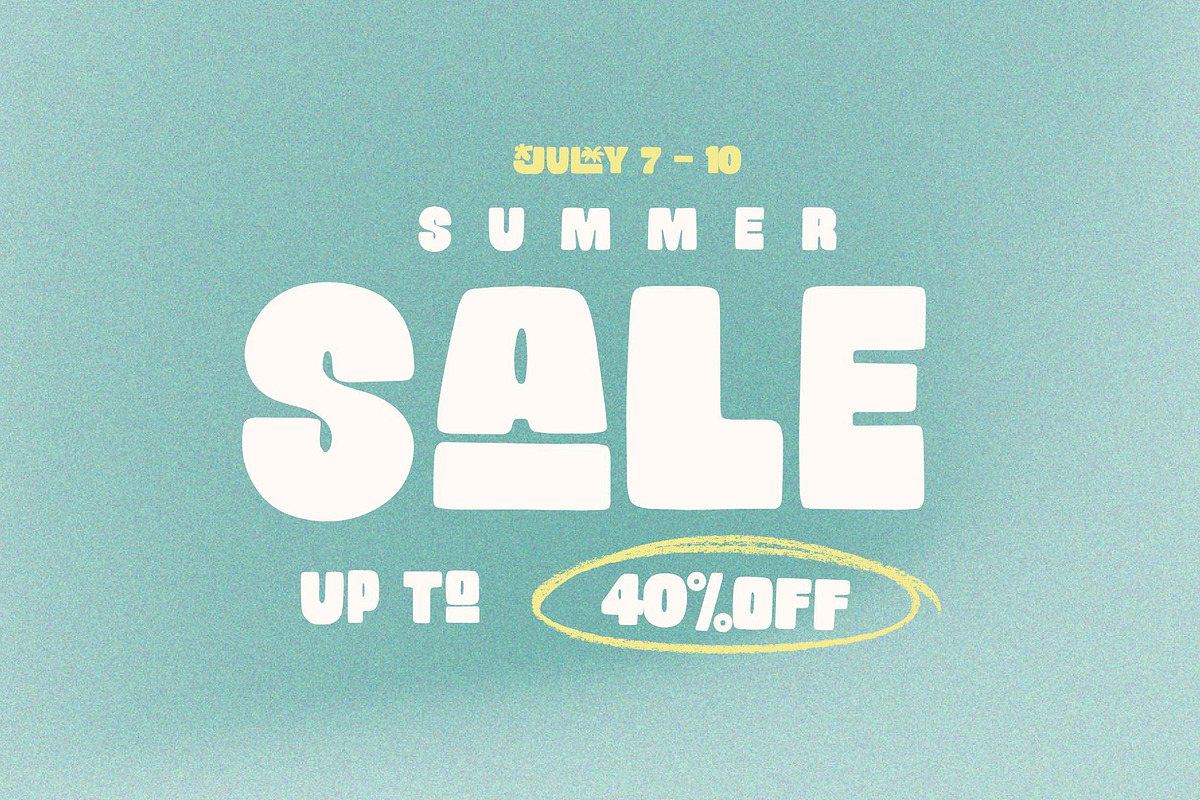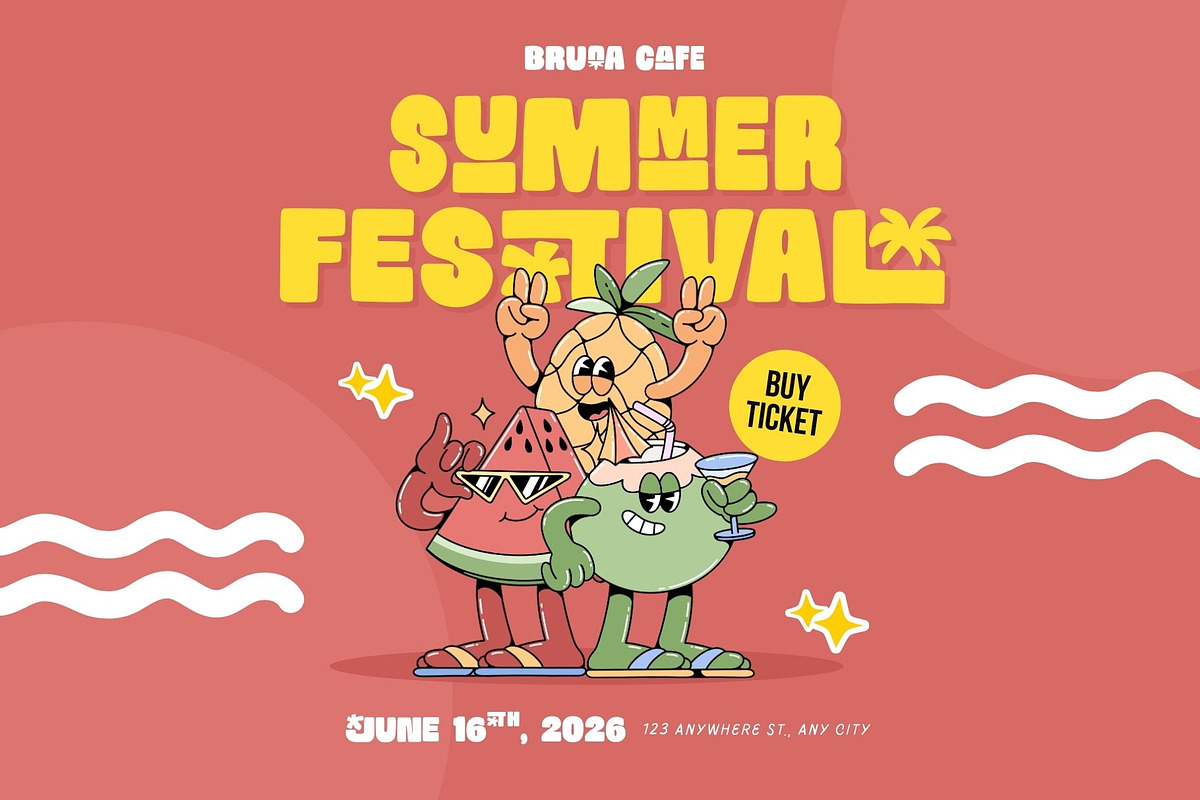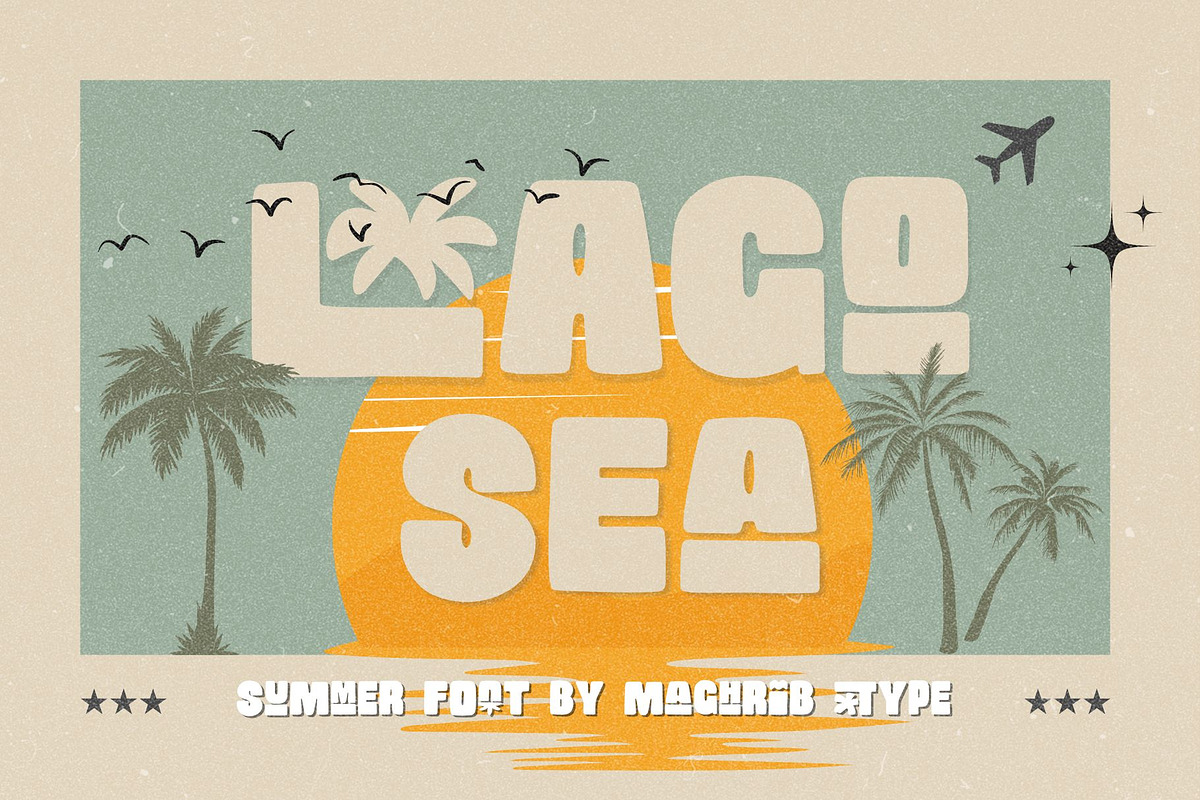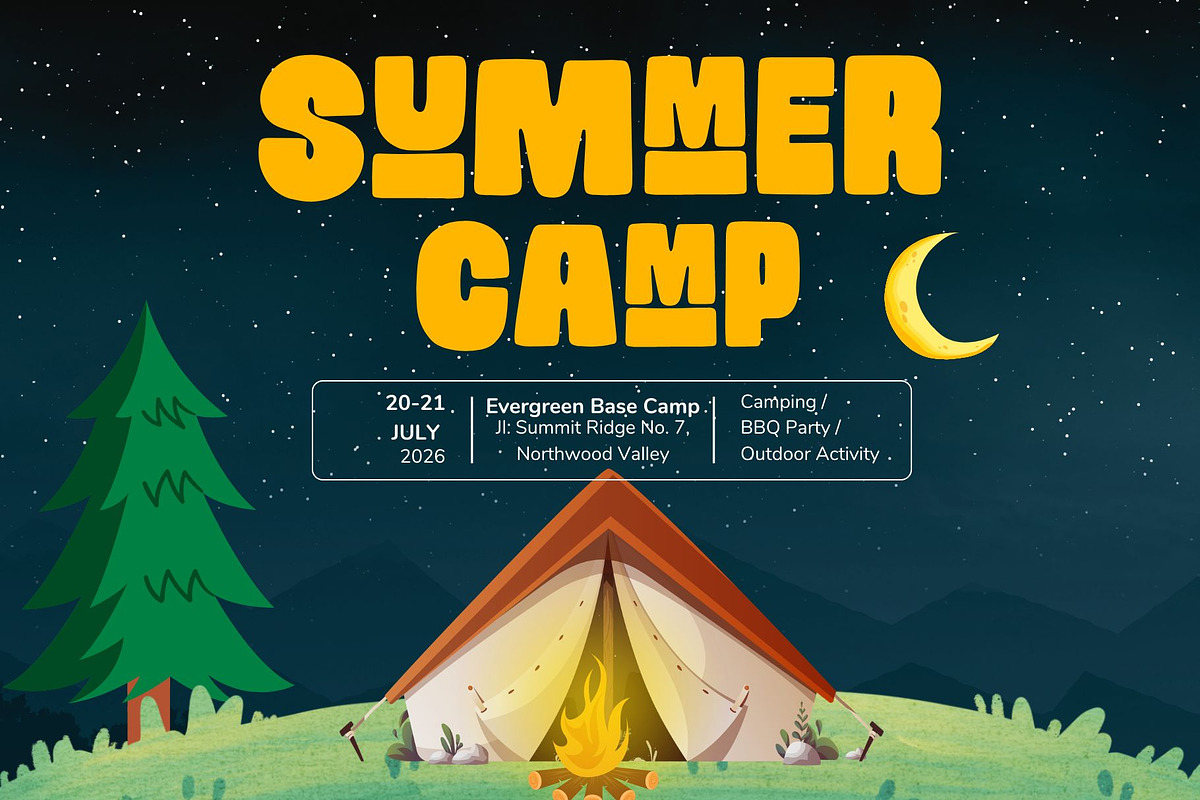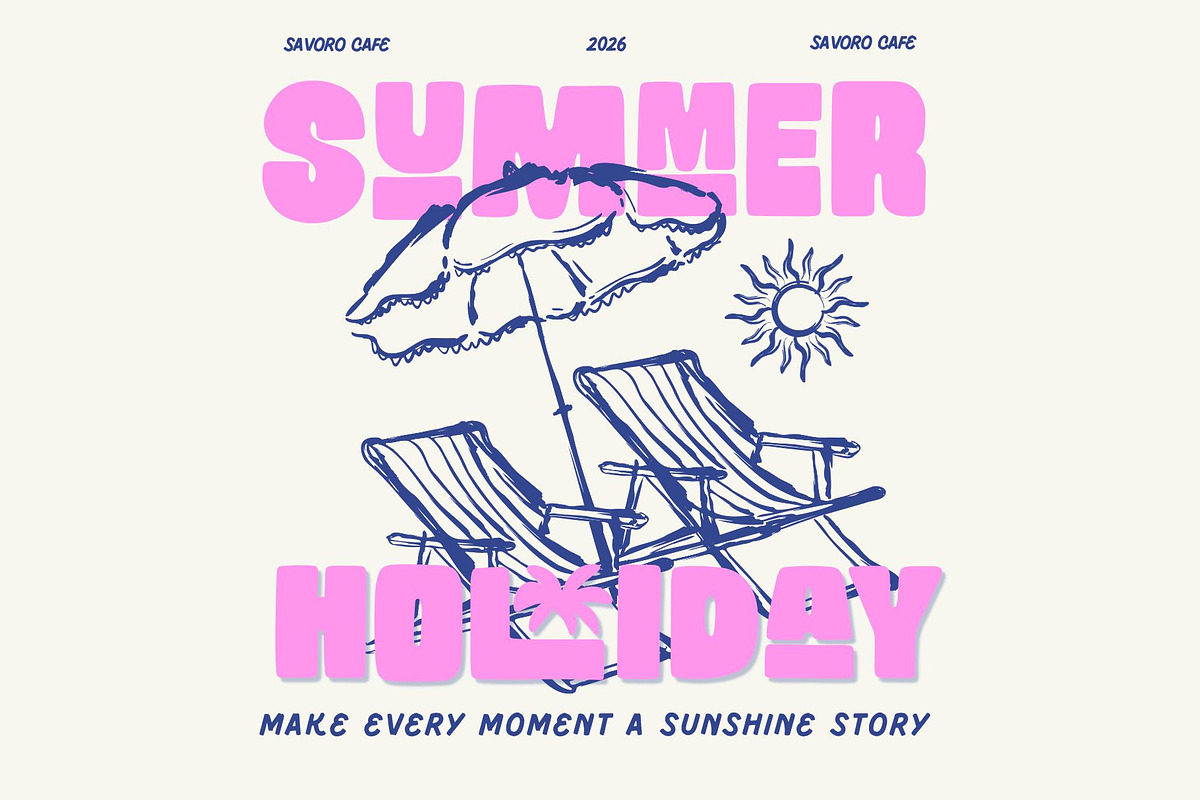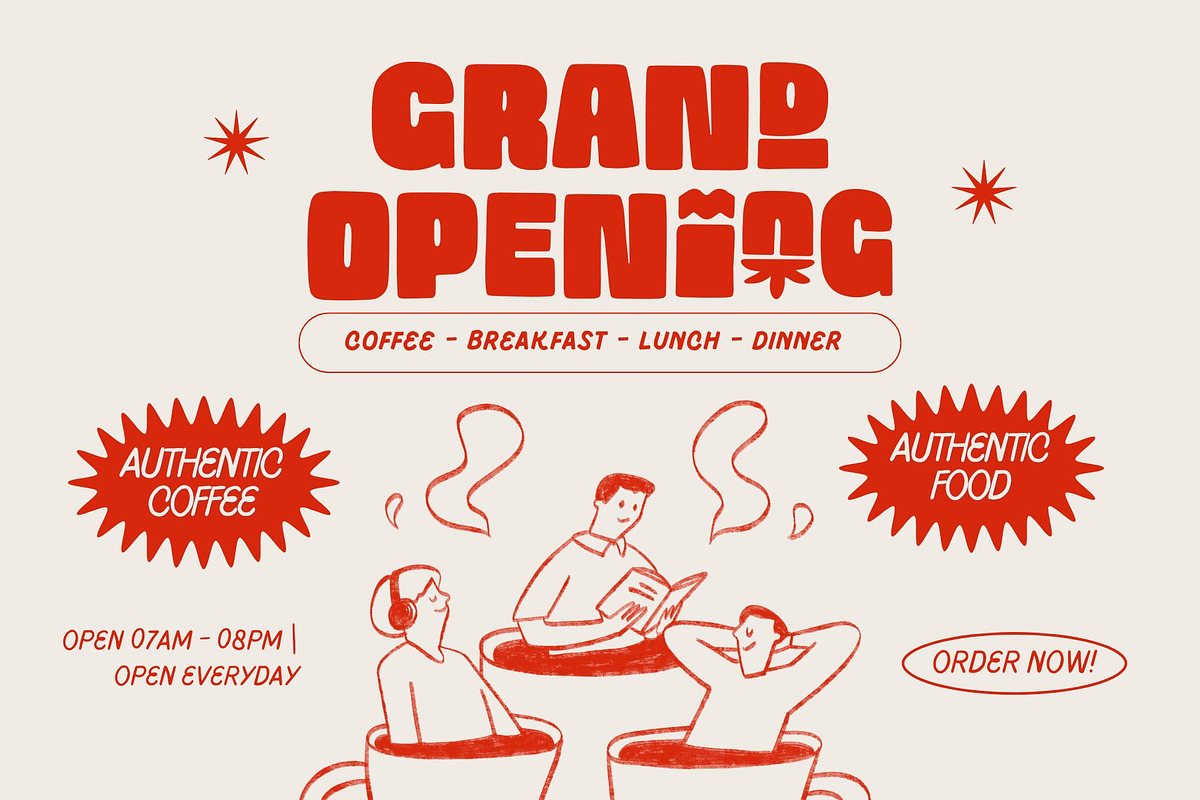
Lago Sea Sans Serif
Lago Sea Sans Serif is a bold, playful summer display font inspired by warm sunsets, tropical beaches, and carefree holiday vibes. Designed with soft rounded edges and chunky letterforms, this font brings a fun, relaxed, and cheerful personality to any design project.
With its smooth curves and hand-drawn feel, Lago Sea captures the essence of summer adventures — from beach parties and camping nights to café branding and retro-inspired posters. The thick shapes create strong visual impact, making it perfect for eye-catching headlines and standout typography.
Lago Sea works beautifully for: Summer event posters Beach and travel branding Café and restaurant logos Camping and outdoor themes Social media graphics Packaging design Children’s projects Retro and vintage layouts Merchandise and apparel
Its friendly and approachable style makes it ideal for designs that need a cute, bold, and happy touch. Whether you're creating a tropical campaign, a sunset-inspired poster, or a playful branding concept, Lago Sea delivers warmth and personality in every letter.
Font Features: Uppercase characters Numerals & punctuation Bold display style Clean sans serif structure Perfect for headlines and logos Easy to combine with script or handwritten fonts Bring the sunshine into your typography with Lago Sea Sans Serif — the perfect font for bright, bold, and joyful summer designs.